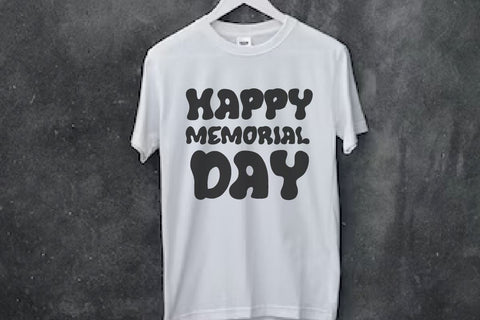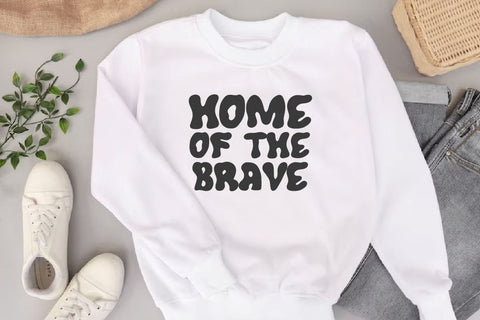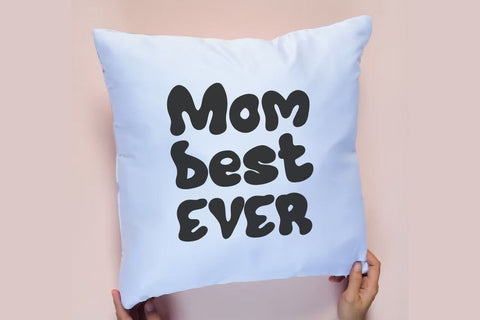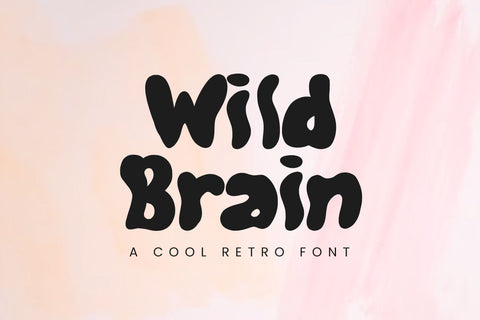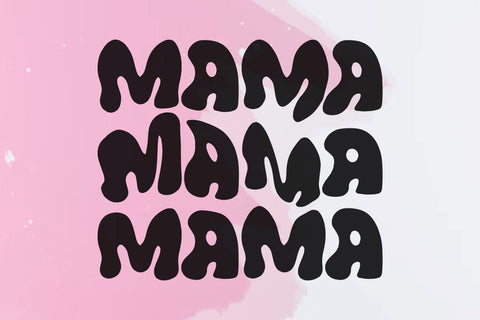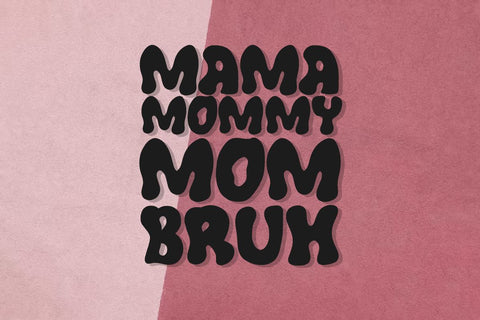
Wild Brain - Retro Font
Wild Brain is a retro font with a cool style made by handwriting
This font is perfect for your creative projects, svg files, craft projects, graphic tees, logos, social media, stickers, procreate, and more!